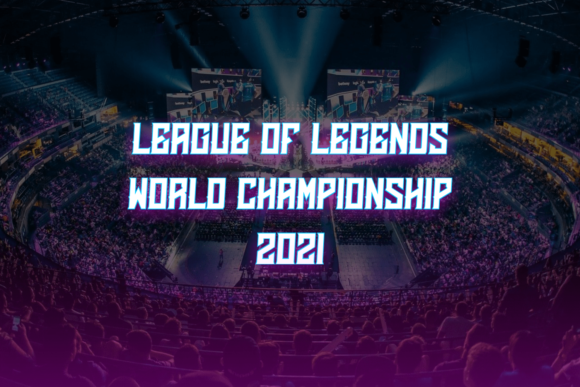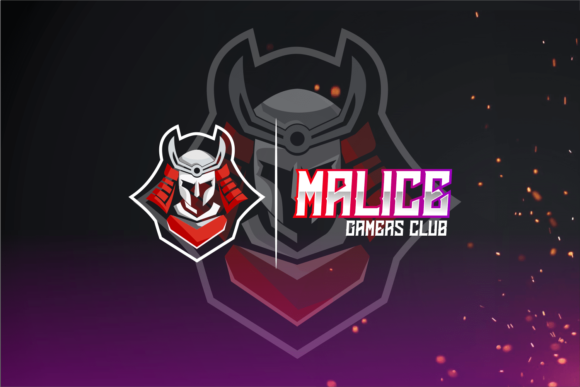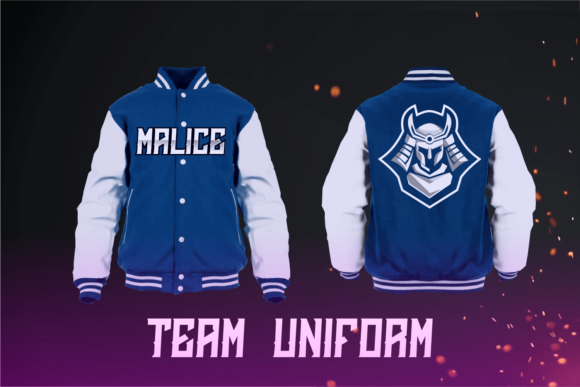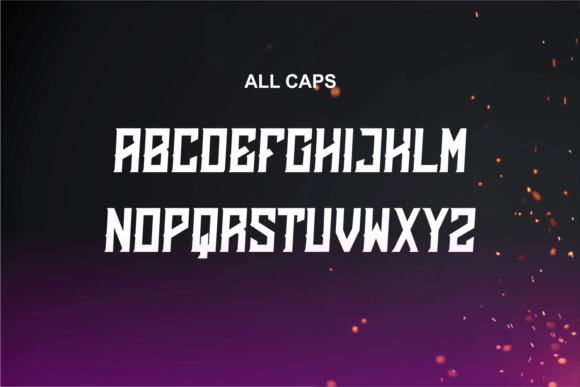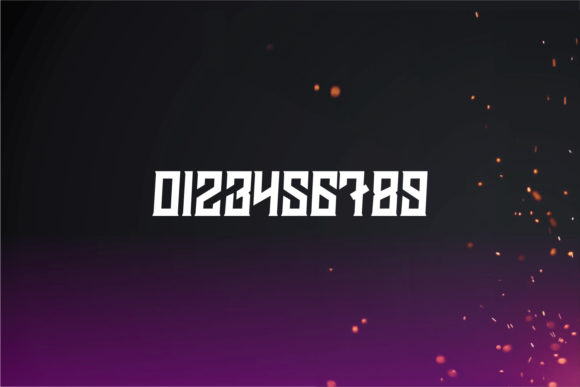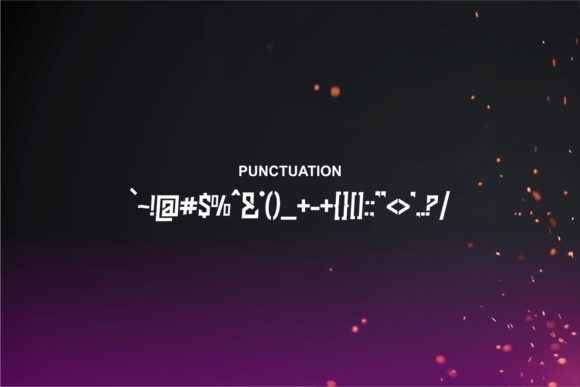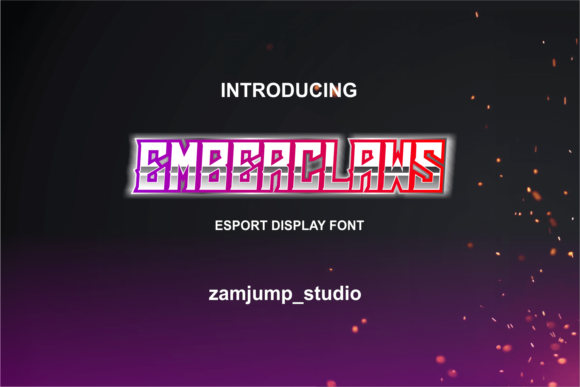
Introducing Emberclaws Font: A Bold and Futuristic Display Font
In the world of typography, a good font can make all the difference in elevating your design to the next level. For designers and crafters looking to add a touch of futurism and boldness to their creations, Emberclaws font is an excellent choice. This striking display font is designed to make a statement, and its versatility makes it an incredibly valuable asset to any font library.
What is Emberclaws Font?
Emberclaws is a bold and futuristic display font that is perfect for headlines, titles, and any other design element that requires a strong visual impact. Its unique and sleek design makes it stand out from other fonts, and its versatility ensures that it can be used across a wide range of topics and industries.
Key Features of Emberclaws Font
So, what makes Emberclaws font so special? Here are some of its key features:
- Bold and Futuristic Design: Emberclaws font boasts a bold and futuristic design that is sure to grab attention. Its sleek lines and sharp edges give it a cutting-edge look that is perfect for modern designs.
- Highly Versatile: Whether you’re designing a logo, brochure, or website, Emberclaws font can be used across a wide range of applications. Its versatility makes it an excellent addition to any font library.
- Easy to Read: Despite its bold design, Emberclaws font is surprisingly easy to read, making it perfect for headlines and titles that need to convey a message quickly and effectively.
- Scalable: Emberclaws font is designed to be scalable, ensuring that it looks great whether it’s used in a small or large size.
How to Use Emberclaws Font
Emberclaws font can be used in a variety of ways to elevate your designs. Here are some ideas to get you started:
- Headlines and Titles: Use Emberclaws font to create bold and eye-catching headlines and titles that grab attention.
- Logos and Branding: Emberclaws font is perfect for logos and branding elements that require a strong visual impact.
- Posters and Flyers: Add a touch of futurism to your posters and flyers with Emberclaws font.
- Web Design: Use Emberclaws font to create bold and futuristic website headers, titles, and other design elements.
Benefits of Using Emberclaws Font
So, why should you choose Emberclaws font for your design projects? Here are some benefits of using this amazing font:
- Stand Out from the Crowd: Emberclaws font is designed to grab attention, ensuring that your designs stand out from the crowd.
- Professional Look: Emberclaws font gives your designs a professional and modern look that is sure to impress.
- Time-Saving: With Emberclaws font, you can create stunning designs in no time, saving you time and effort.
In conclusion, Emberclaws font is an excellent choice for designers and crafters looking to add a touch of futurism and boldness to their creations. Its unique and sleek design, versatility, and ease of use make it an incredibly valuable asset to any font library. Whether you’re designing a logo, brochure, or website, Emberclaws font is sure to elevate your design to the next level.